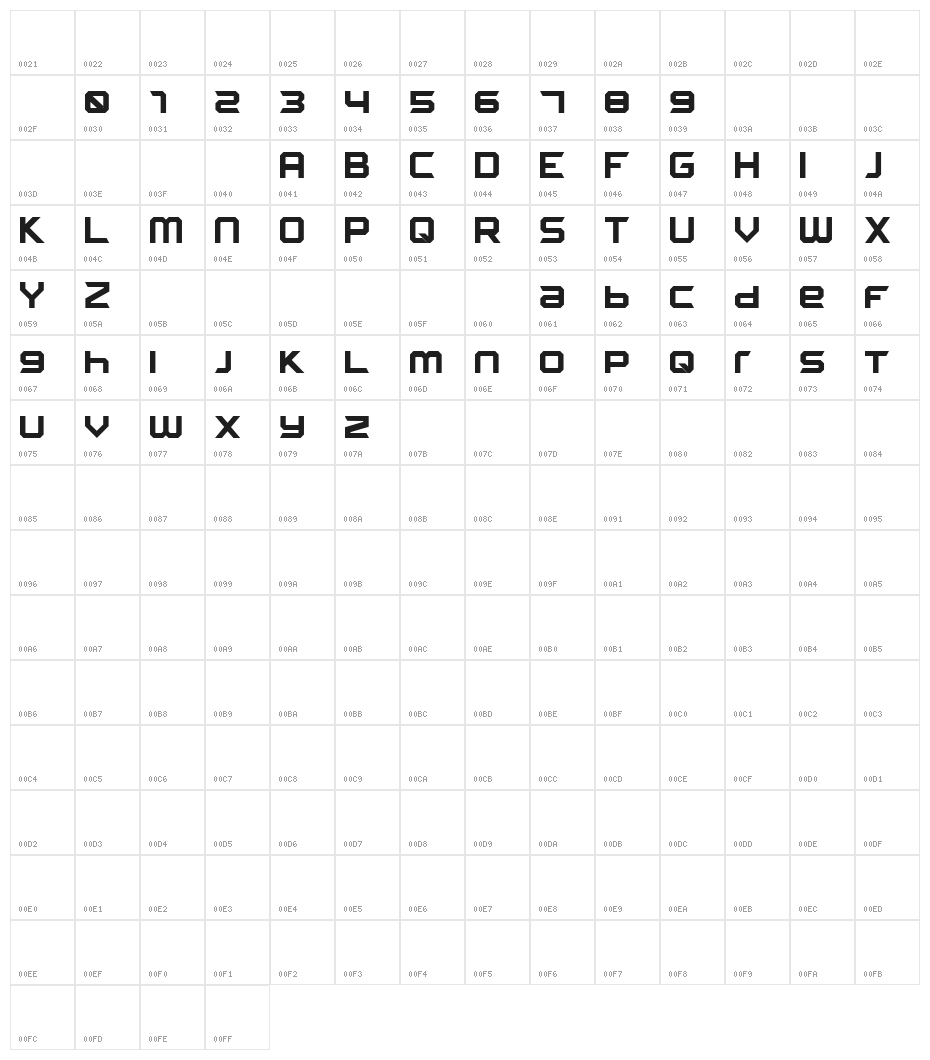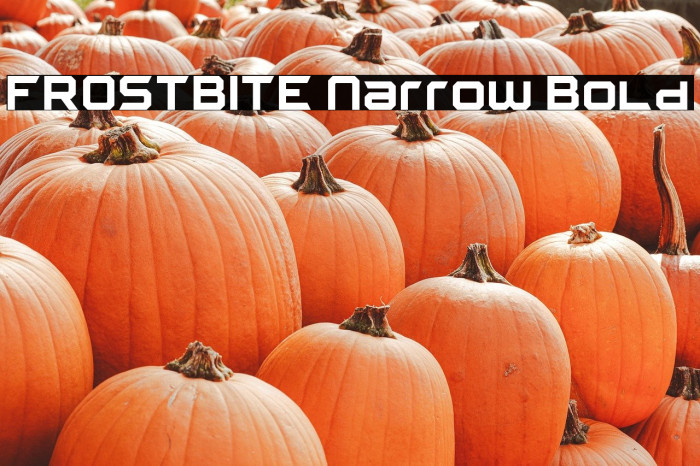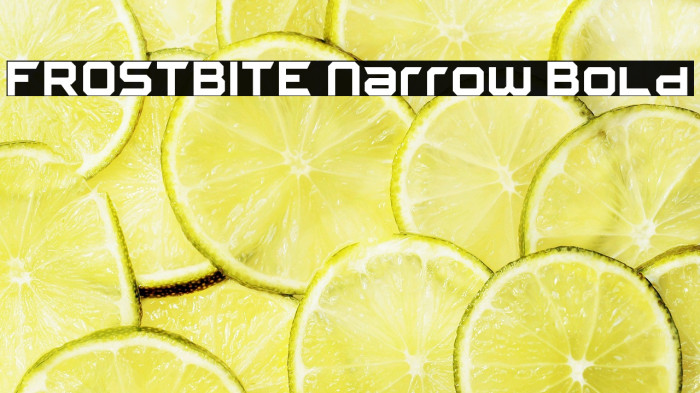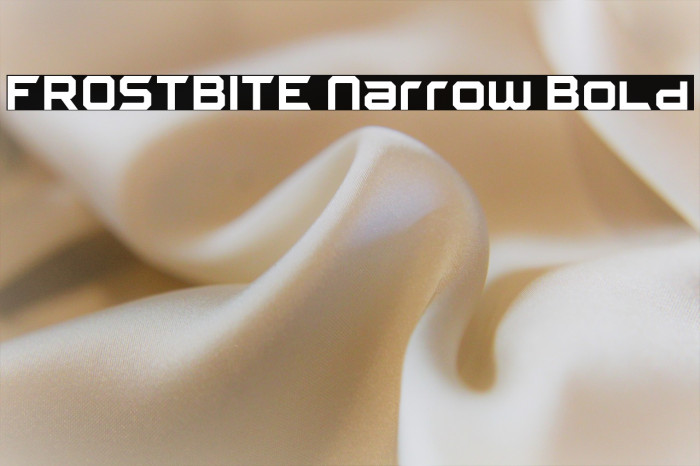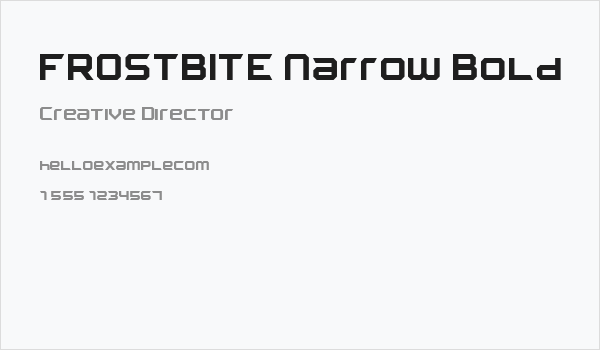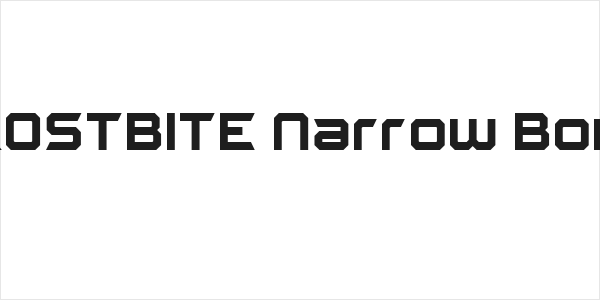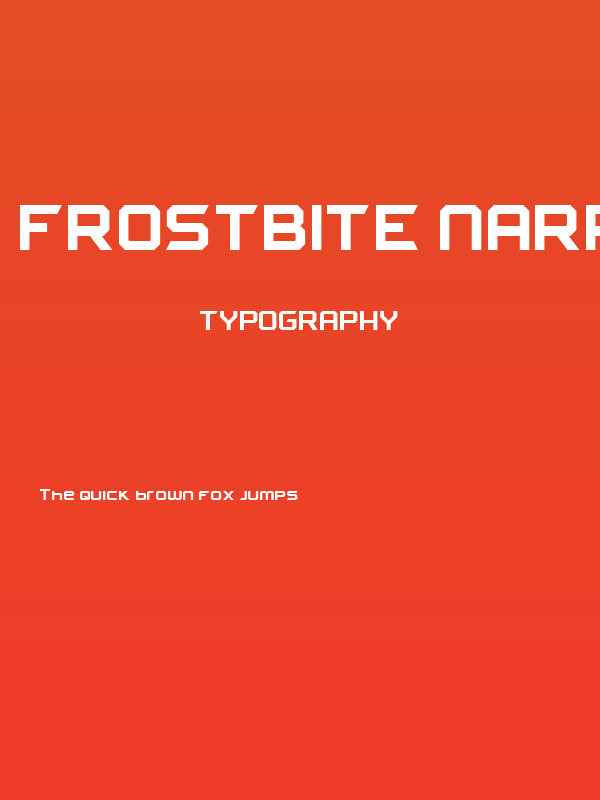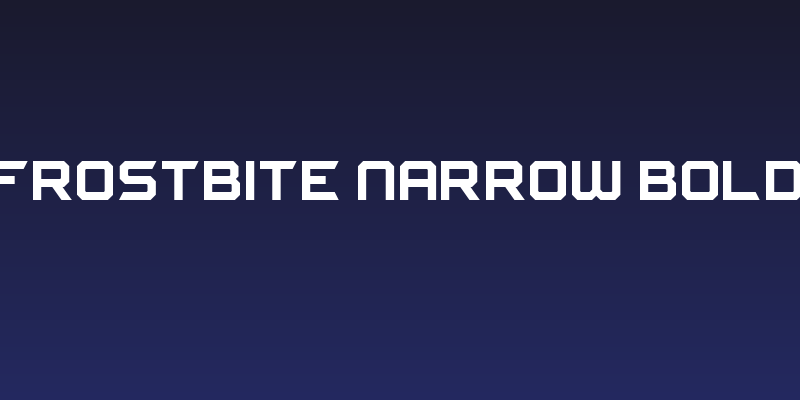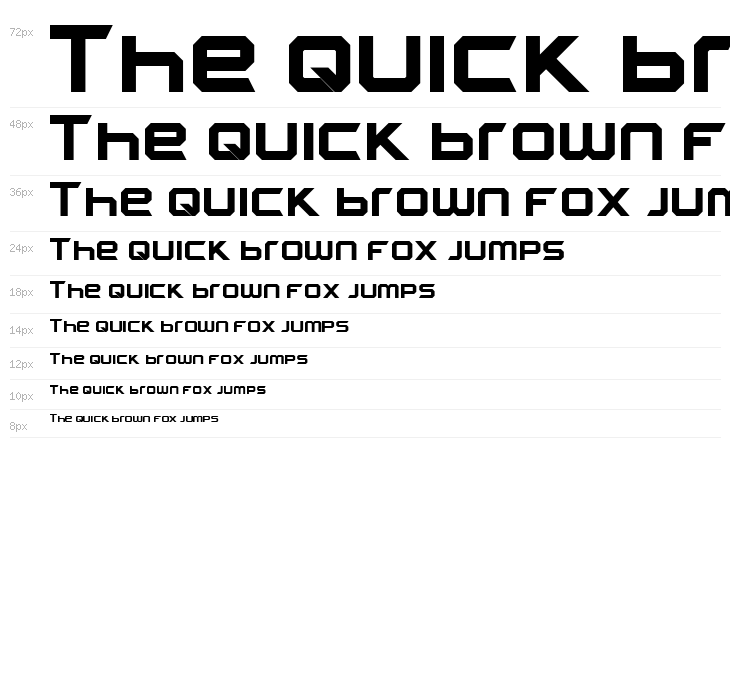
FROSTBITE Narrow Bold Font
FROSTBITE Narrow Bold Description
This font features a bold and geometric design with sharp angles and a futuristic aesthetic. The characters are narrow, giving it a compact appearance, while maintaining a strong visual impact. The uppercase and lowercase letters share a consistent style, emphasizing angular cuts and a blocky structure. Numbers and special characters follow the same design principles, ensuring uniformity across all glyphs. The font's boldness and unique style make it suitable for attention-grabbing headlines and modern design projects.
| Proposed Projects | Ideal for sci-fi themed posters, video game titles, tech branding, and modern advertising. |